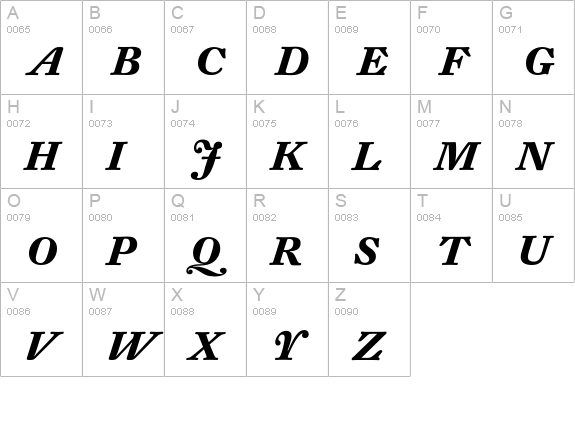
The DTLFleischmannT-BoldItalic font is a stunning typeface that exudes elegance and sophistication. Its bold and italicized design adds a touch of flair to any project, making it perfect for headings, titles, and other prominent text. With its sleek curves and strong presence, this font commands attention and leaves a lasting impression on the reader. What's even better is that the DTLFleischmannT-BoldItalic font is available for free download at FontsMarket.com! Now you can easily incorporate this eye-catching typeface into your designs without breaking the bank. Whether you're working on a creative project, designing a website, or crafting marketing materials, this font is sure to elevate your work to the next level. Don't miss out on the opportunity to enhance your designs with the DTLFleischmannT-BoldItalic font today.